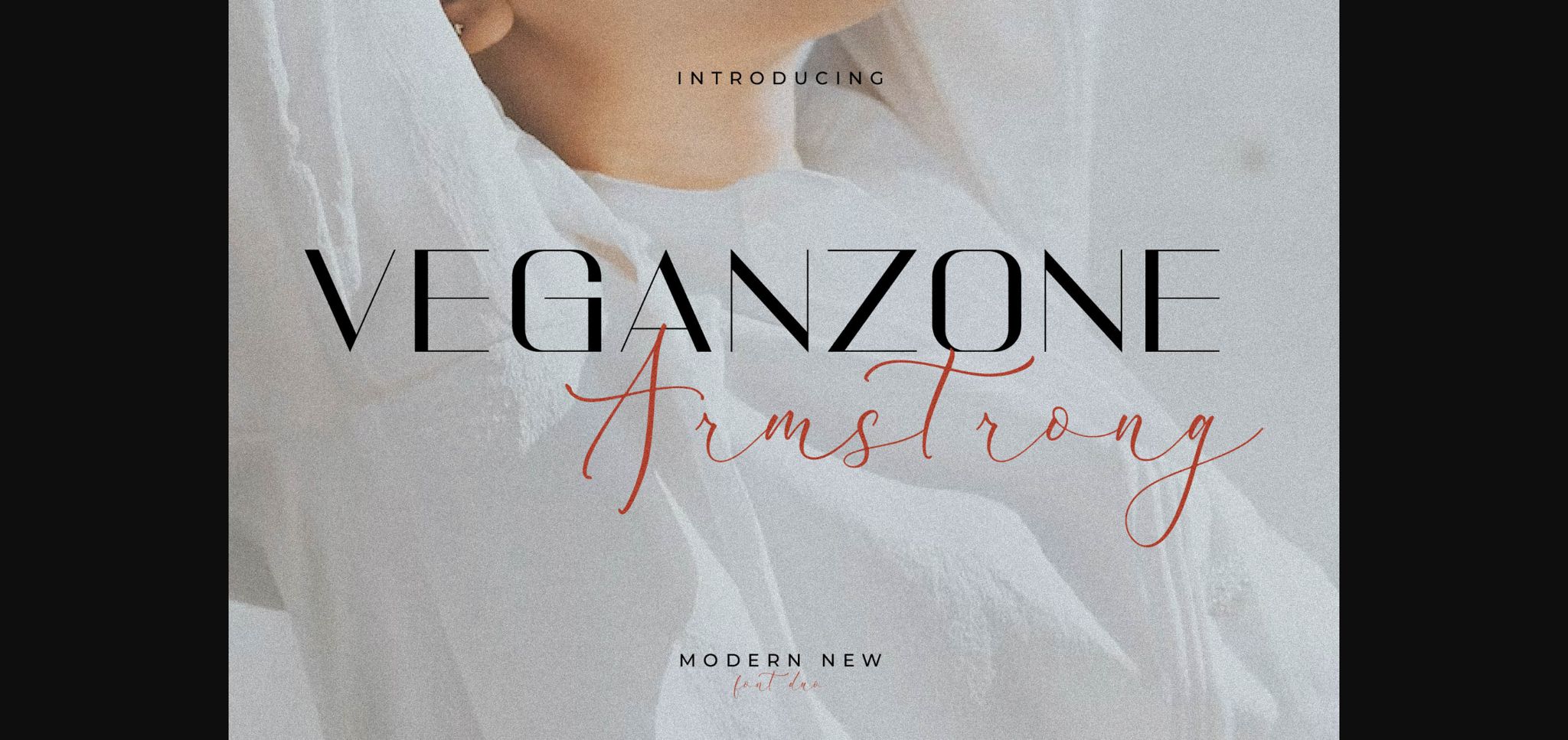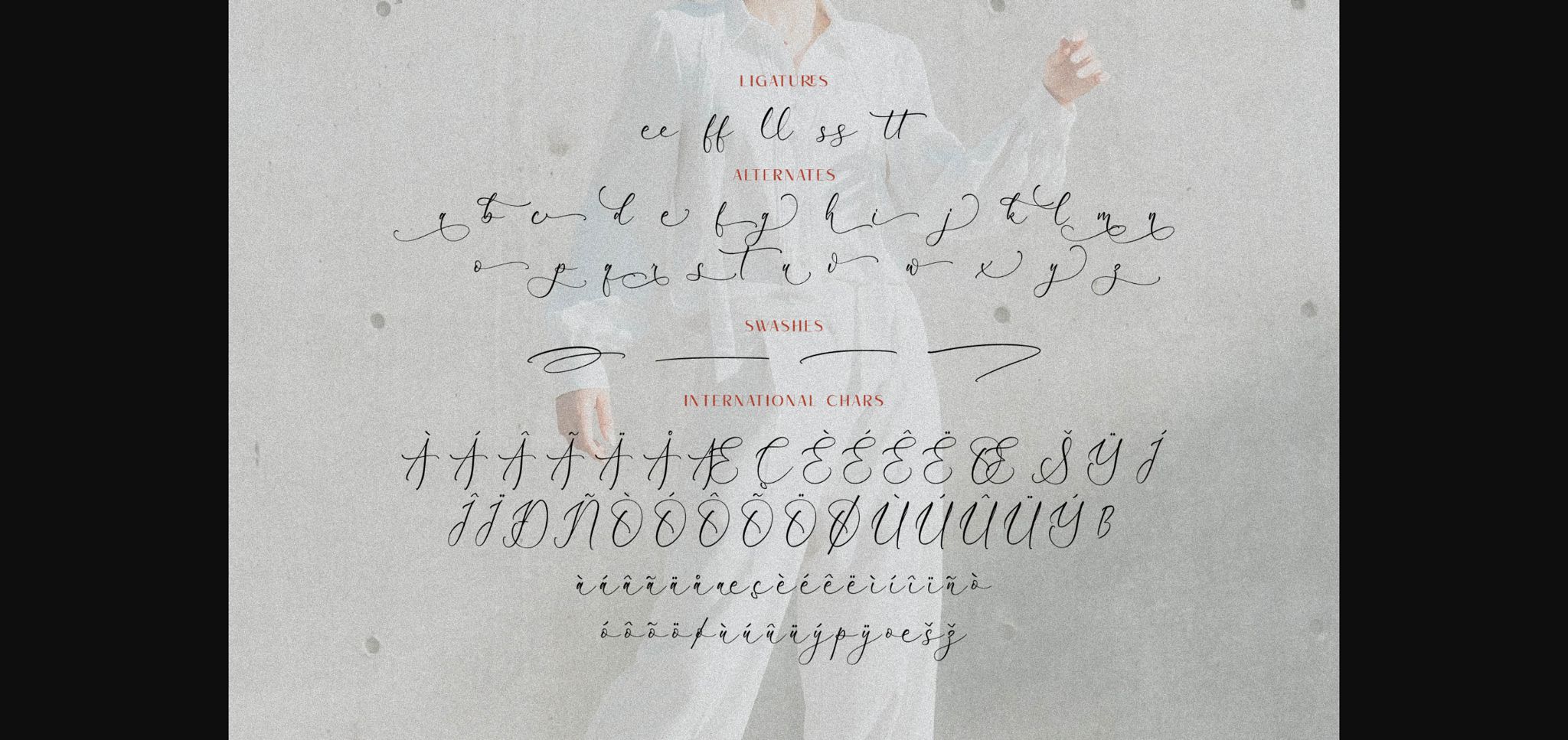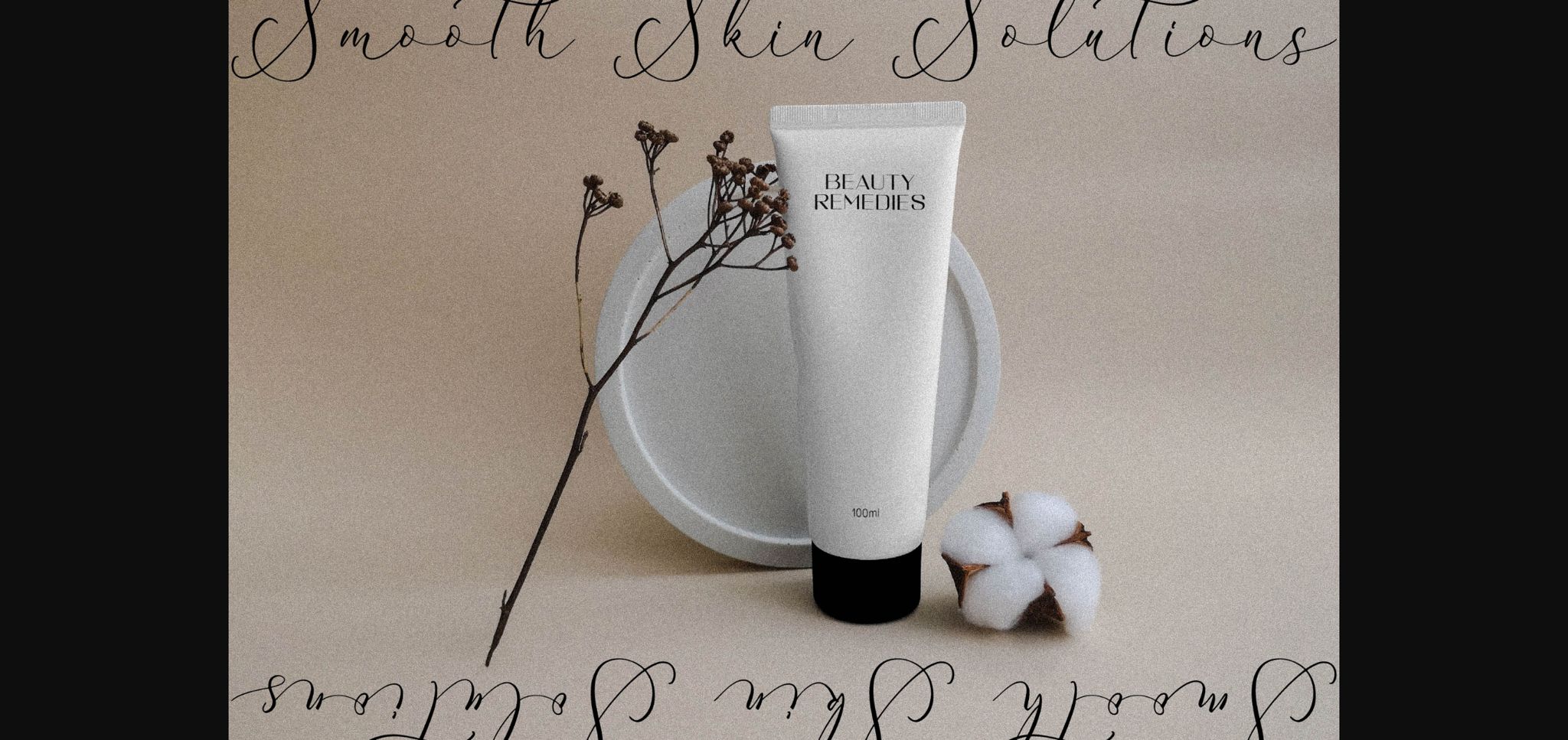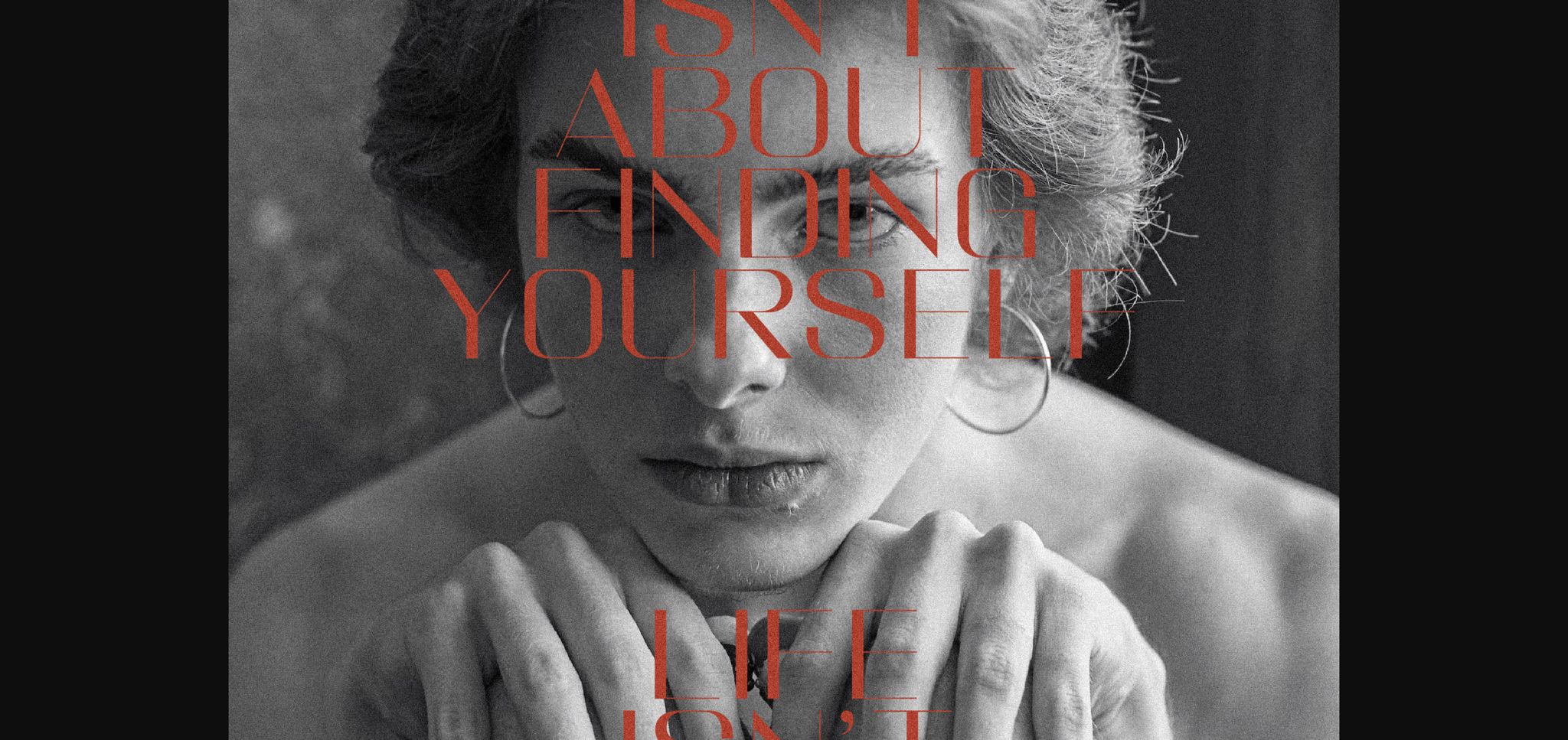
About Veganzone Armstrong Duo Font
Veganzone Armstrong is a stylish and elegant font duo (sans serif and script). Whether you’re looking for fonts for Instagram or calligraphy scripts for DIY projects, this font will turn any creative idea into a true piece of art! This font is PUA encoded which means you can access all the glyphs and ligatures with ease!